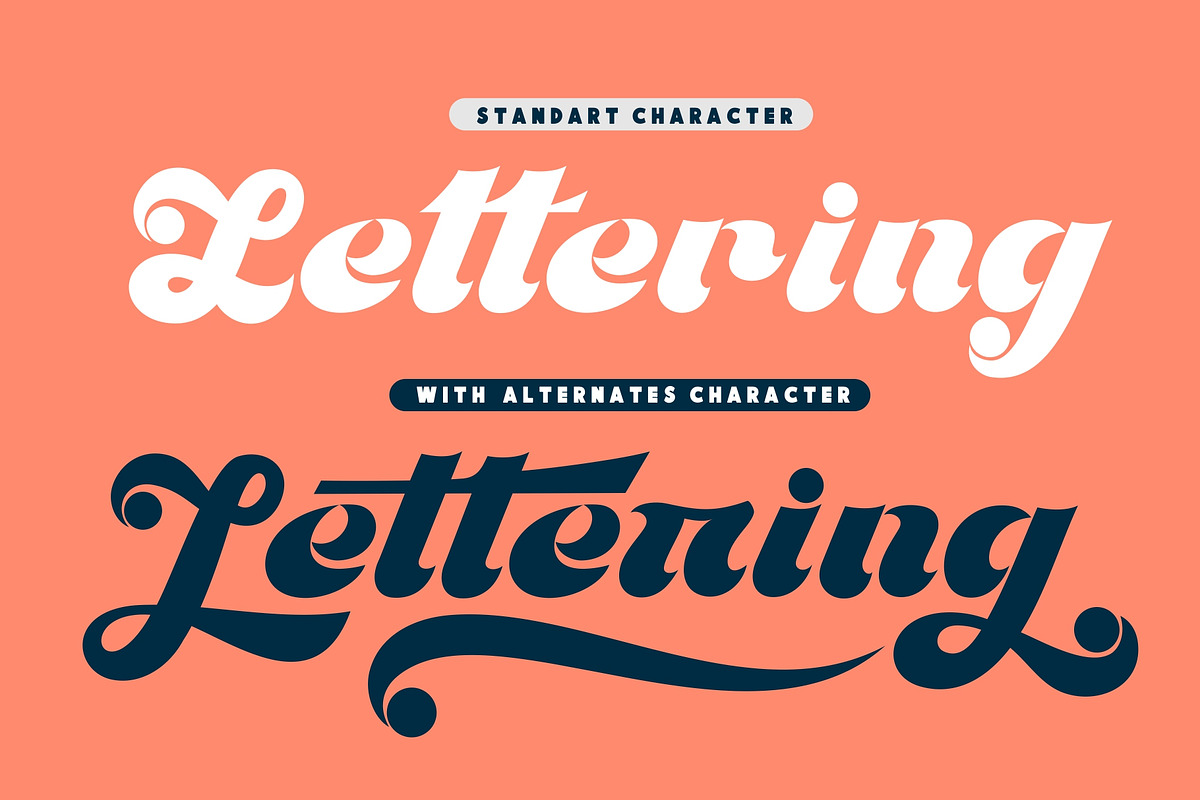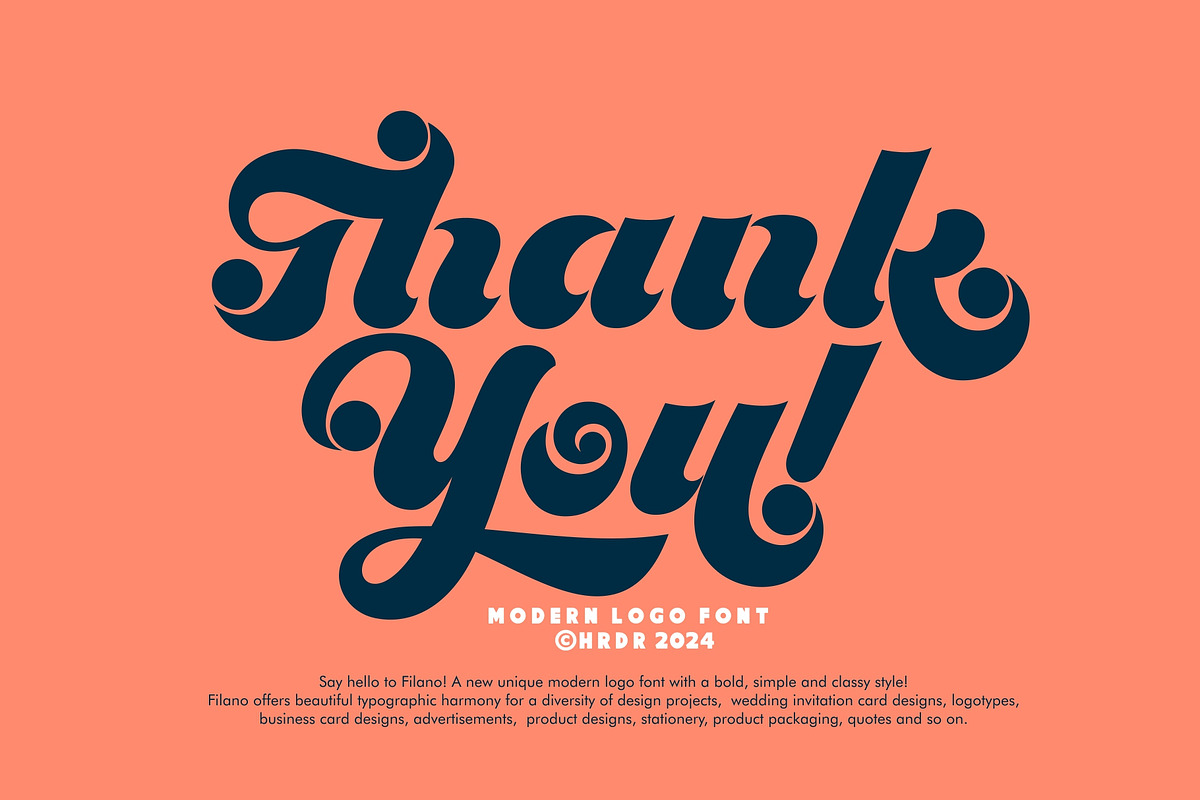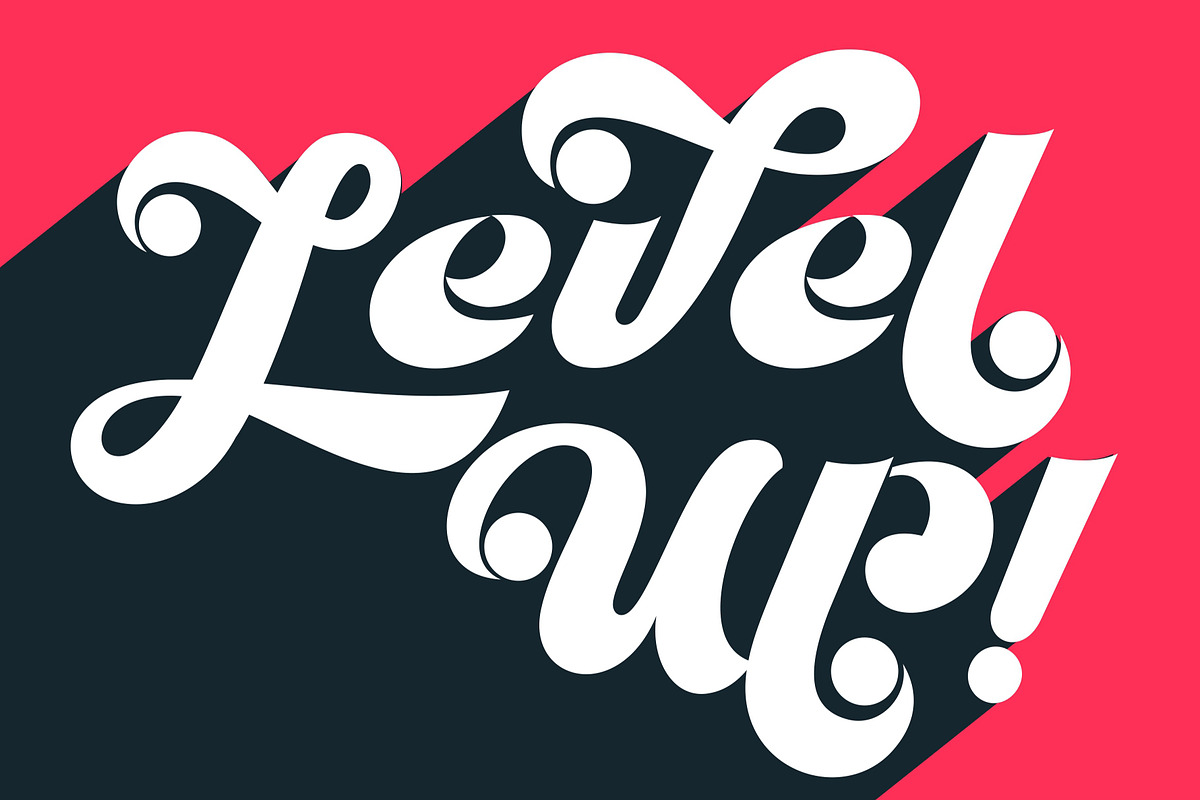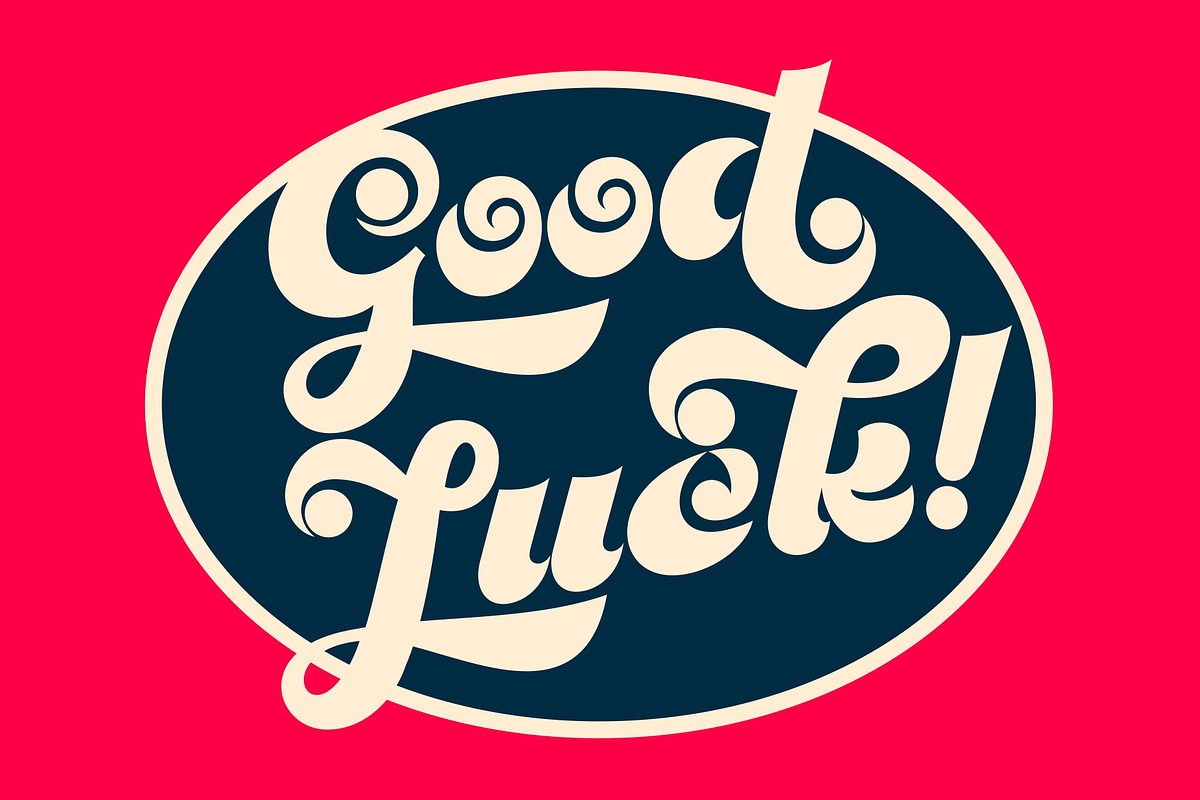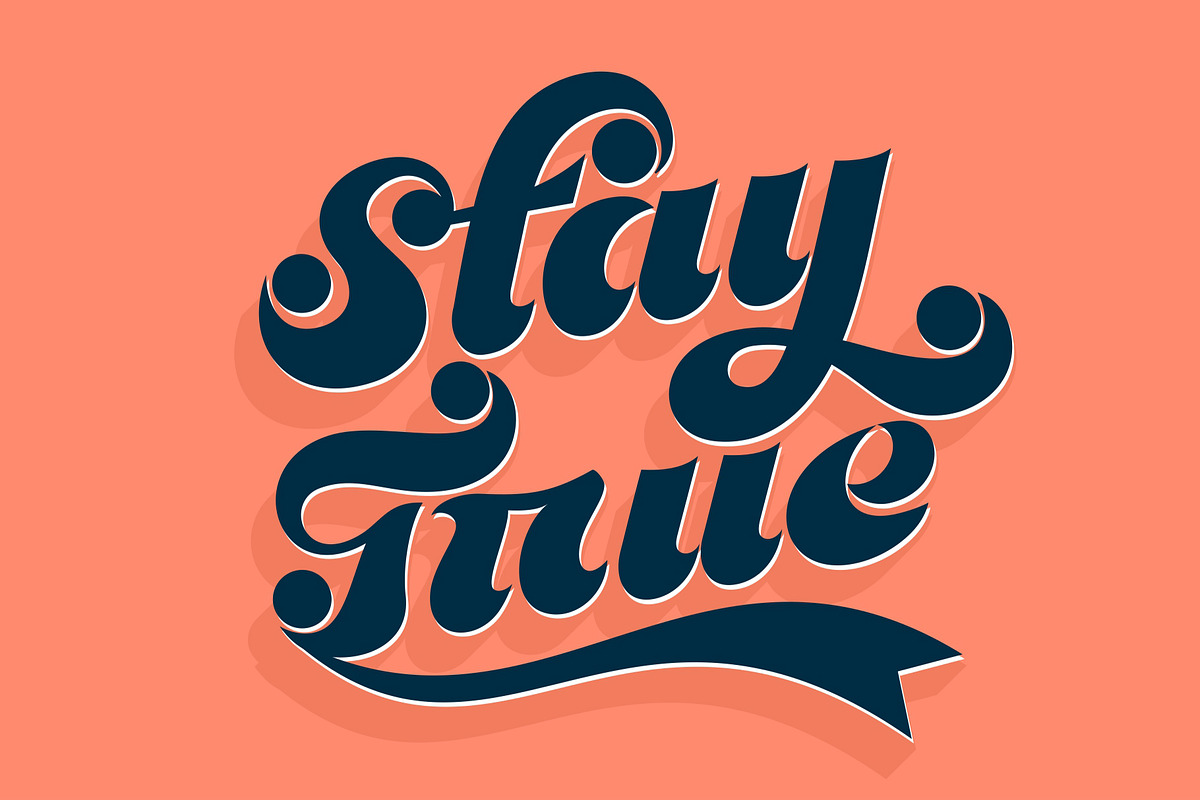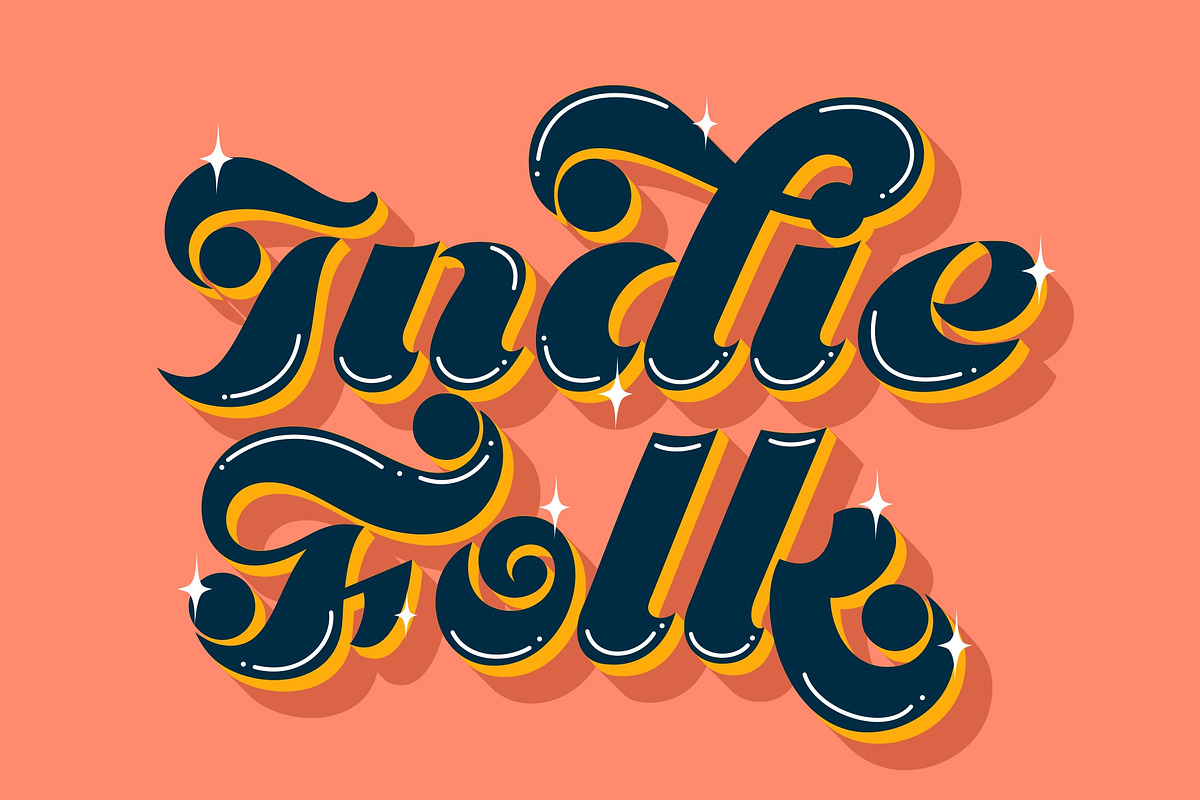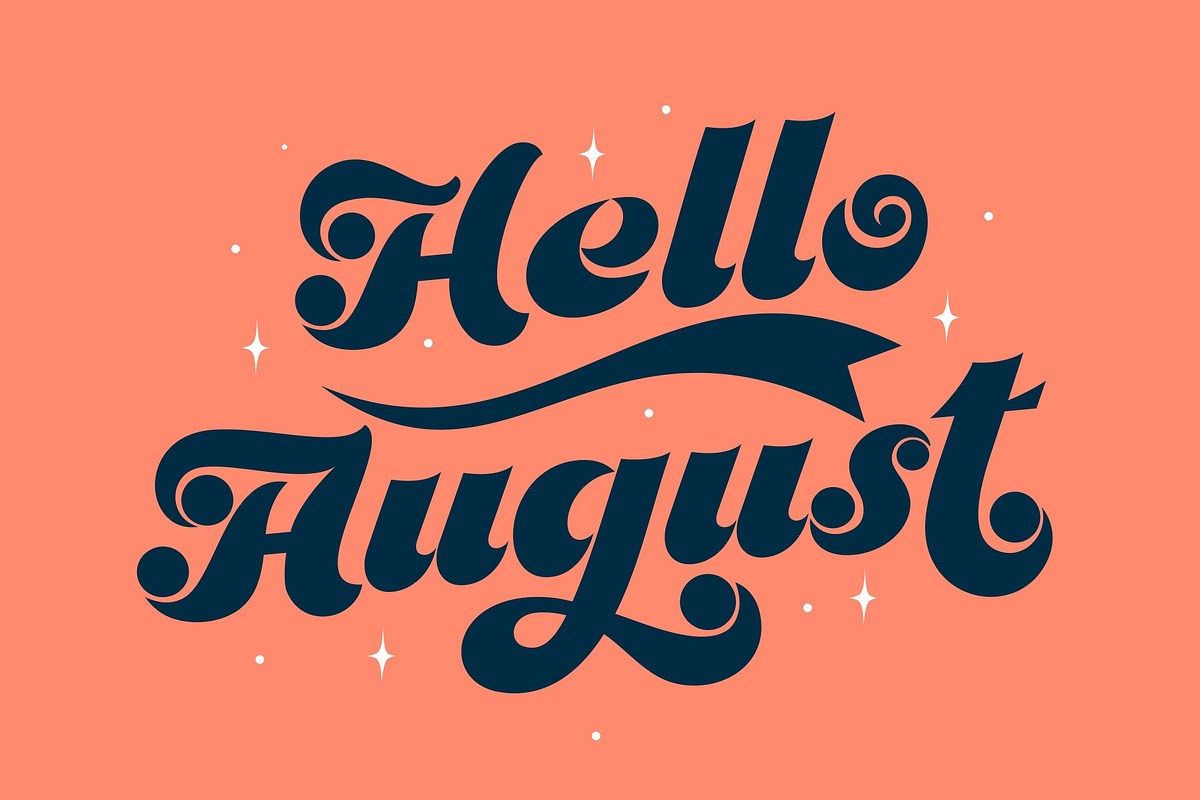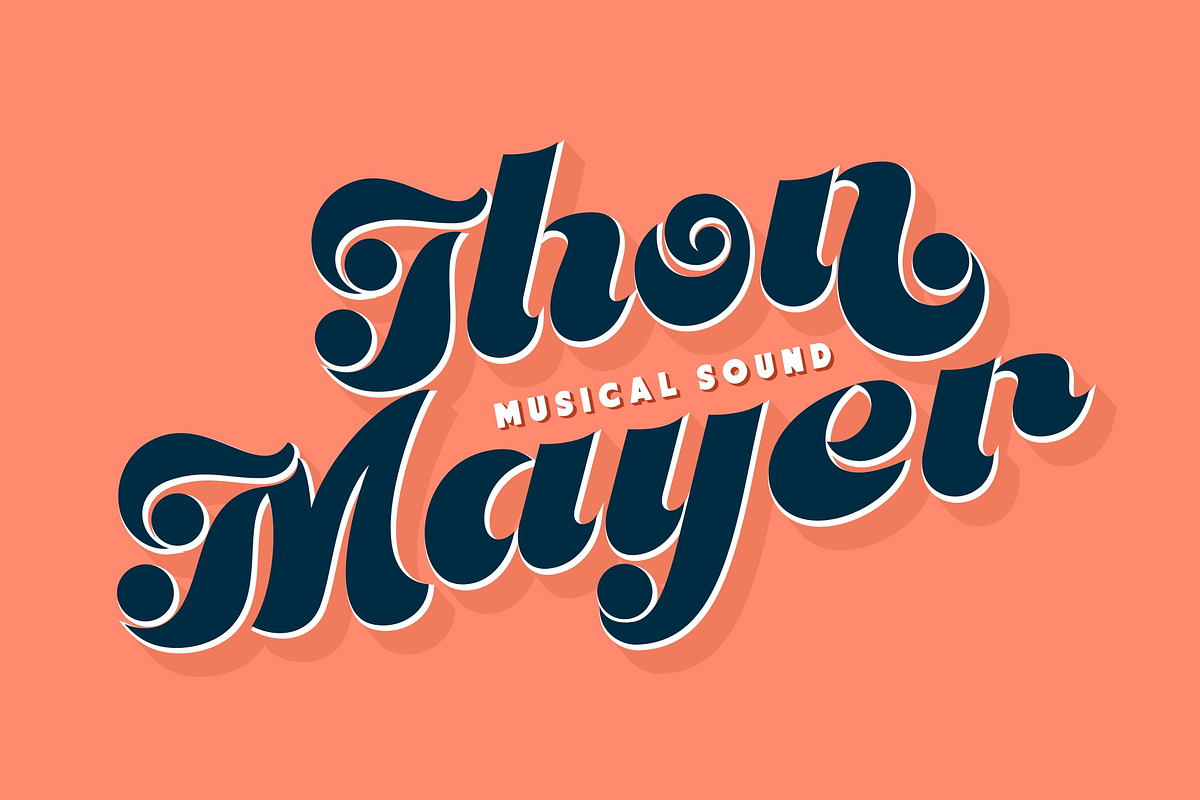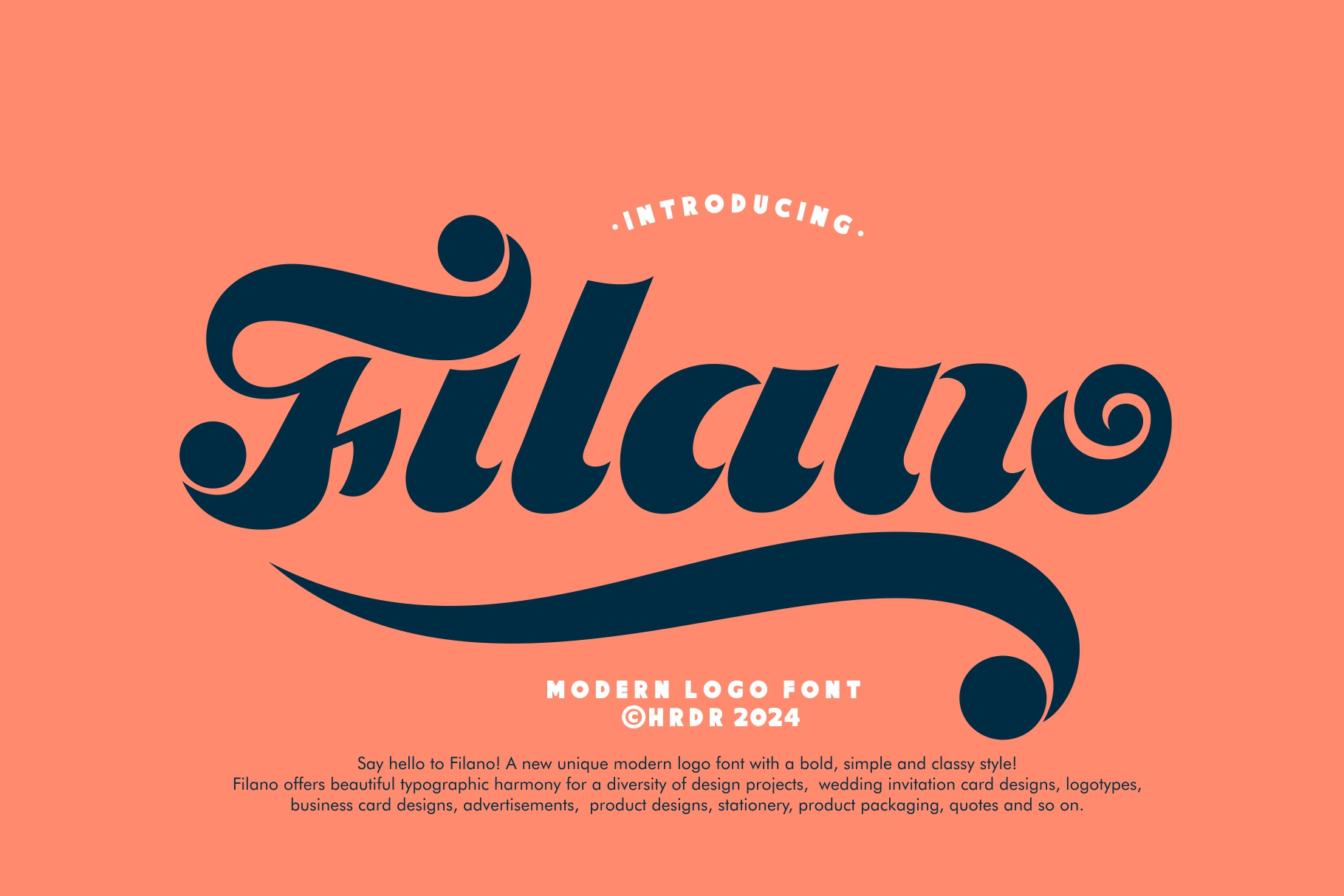
Filano - Modern Logo Font
Say hello to Filano! A new unique modern logo font with a bold, Elegant and classy style. Filano was inspired by Jordan Bell's 'Feast logo.' Filano offers beautiful typographic harmony for a diversity of design projects, wedding invitation card designs, logotypes, business card designs, advertisements, product designs, stationery, product packaging, quotes and so on.
- numeric & Multilingual support
- Stylistic Alternates with (Ss01, Ss02, Ss03, Ss04,Swashes and Ligatures)